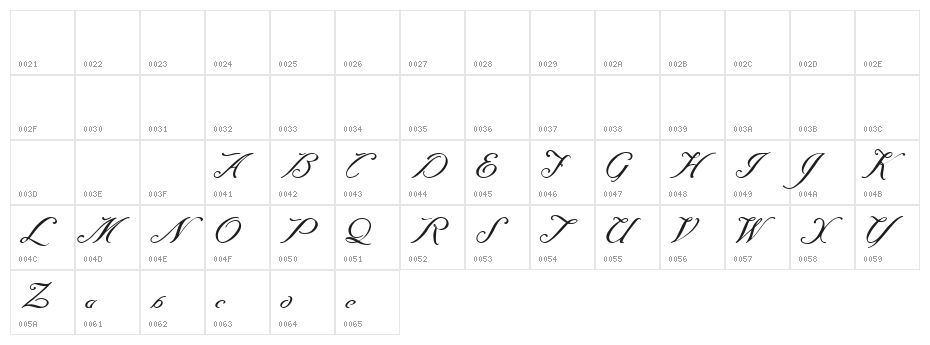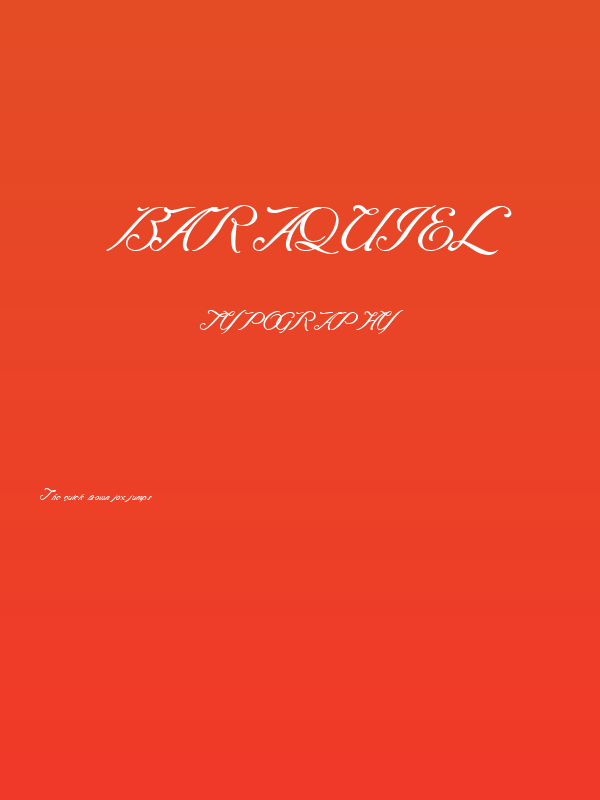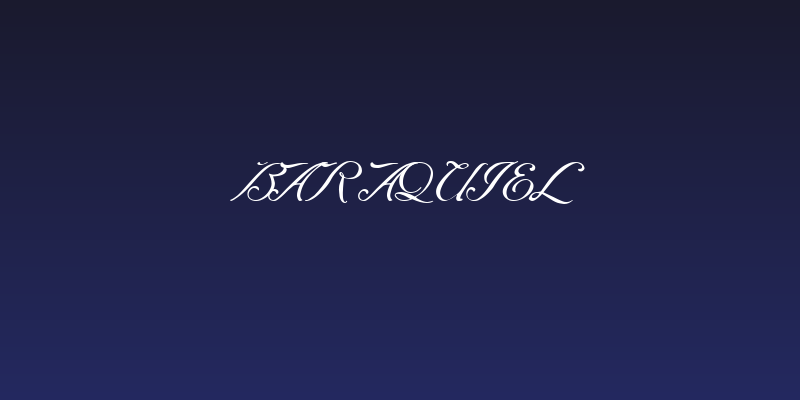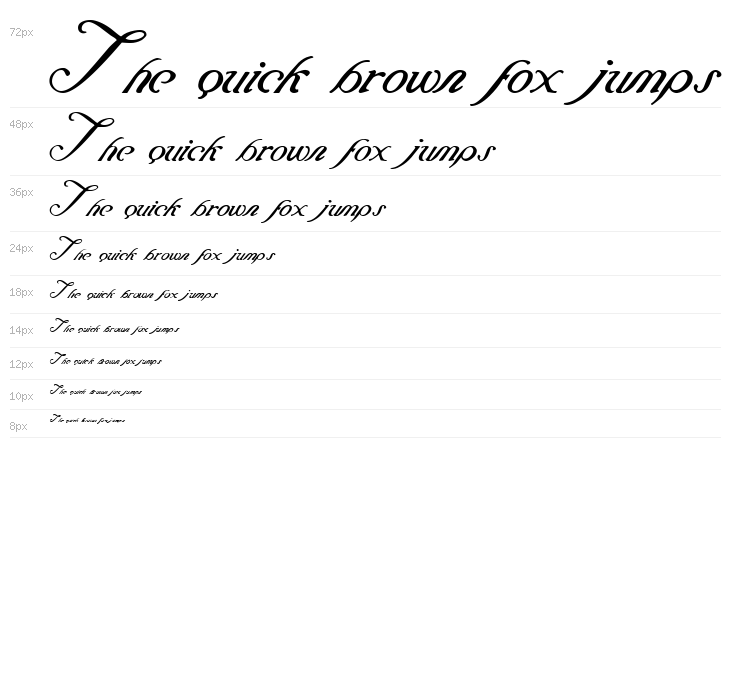
Baraquiel Font
Baraquiel Description
This elegant script font features a flowing, cursive style with intricate details and flourishes. The uppercase letters are particularly ornate, with sweeping lines and loops that give a sense of movement and grace. The lowercase letters maintain a consistent style, with smooth curves and a slightly condensed form that enhances readability. The numbers and special characters are designed to match the overall aesthetic, providing a cohesive look across all elements. This font exudes sophistication and is perfect for projects that require a touch of class and elegance.
| Overall Style | Elegant, Sophisticated |
| Use Case | Invitations, Branding, Packaging |
| Proposed Projects | Ideal for wedding invitations, formal event programs, elegant branding, and luxury product packaging. |